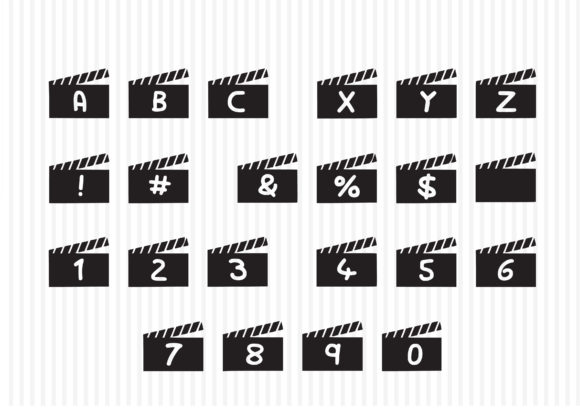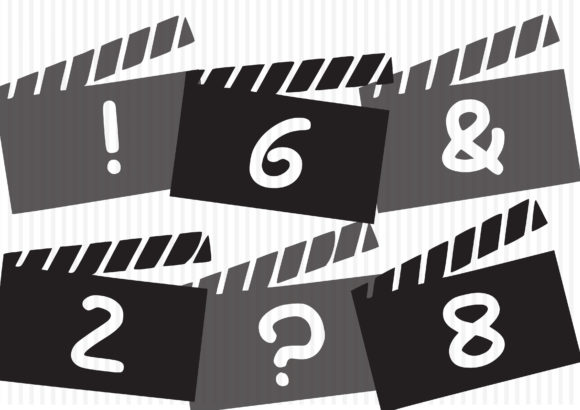
Introduction to Play Film Clapper Font
Play Film Clapper is a cool looking and interesting decorative font, featuring a film symbol on each character.
Key Features of Play Film Clapper Font
Why Choose Play Film Clapper Font?
Play Film Clapper Font offers exceptional quality and versatility, making it a valuable addition to your design toolkit. Whether you’re creating for personal projects or commercial use, Play Film Clapper Font delivers professional results.